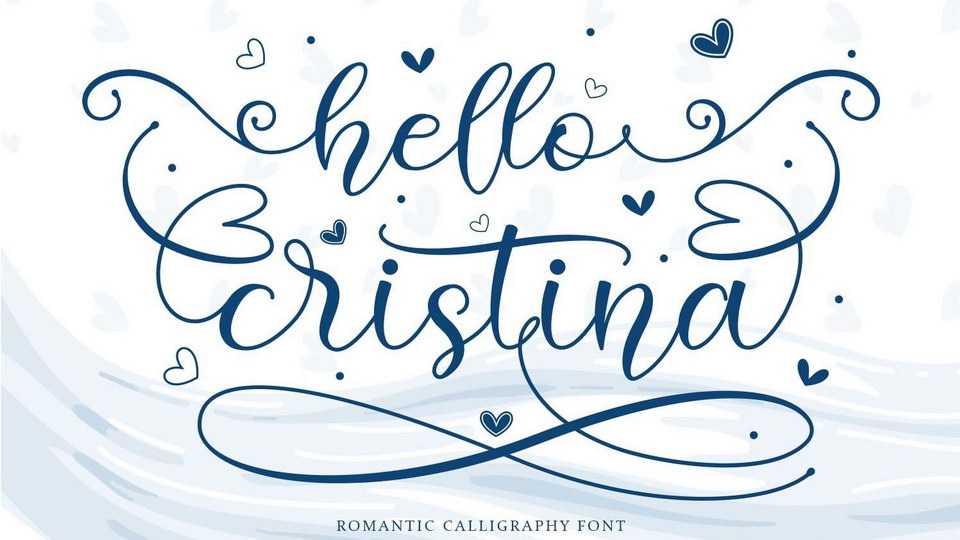
Download Hello Cristina font, a romantic calligraphy typeface with charming swashes. Hello Cristina script will be suitable for all your lovely projects that need beautiful calligraphy taste.
Designer: Naharstd